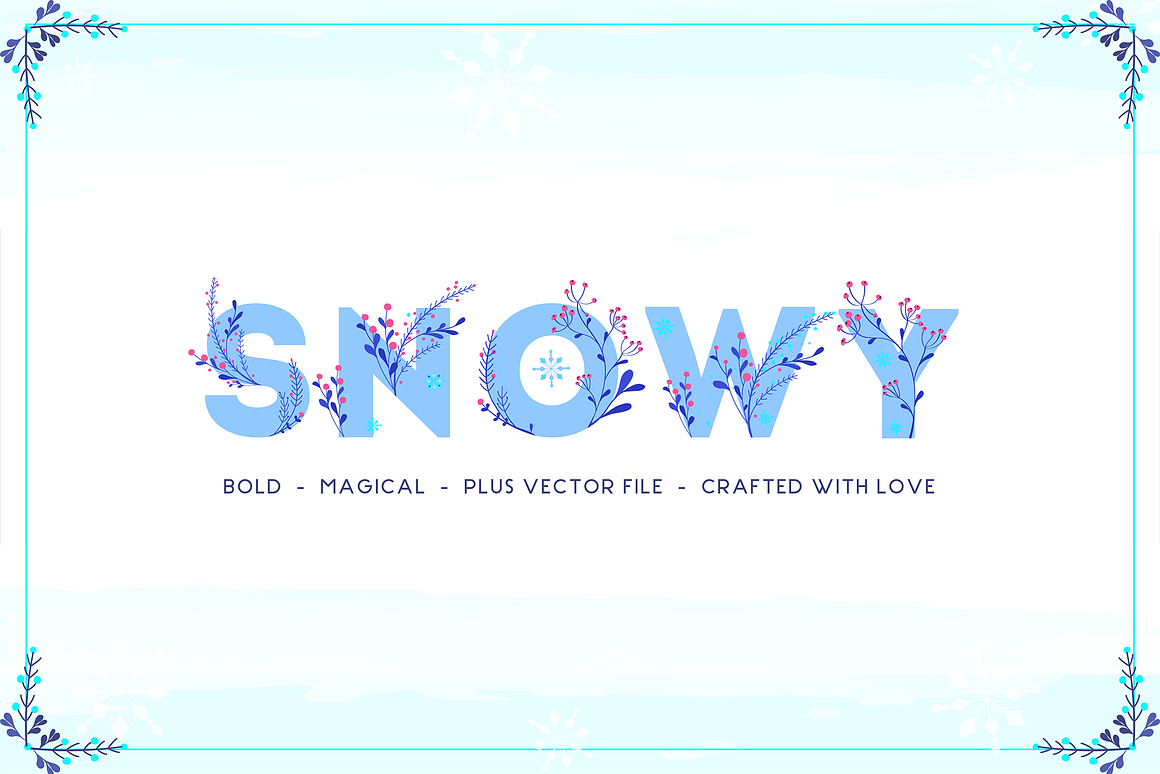
Snowy Floral Color Font
Snowy Floral Color Font is perfect for winter wedding invitations, holiday greeting cards, festive seasonal campaigns, cozy winter branding, botanical winter illustrations, elegant holiday packaging, winter resort materials, seasonal gift tags, frosty fashion collections, holiday party invitations, winter wonderland events, and enchanted seasonal communications.
What makes Snowy Floral Color Font exciting is its enchanting winter beauty that captures the delicate magic of frost-kissed blooms and snow-laden gardens through colorful letterforms that bloom with seasonal elegance. This captivating typeface embodies the serene beauty of winter's gentle touch on nature, combining delicate floral elements with crystalline snow effects that create visual poetry resonating with audiences seeking seasonal charm and natural winter wonder. The font's multi-colored character and botanical details create immediate emotional connection while maintaining the sophistication essential for premium seasonal applications. Its enchanted personality makes it perfect for brands that want to communicate winter elegance, seasonal celebration, and the transformative beauty of nature's winter artistry.
The Snowy Floral Color Font family includes the main color font with integrated floral and snow elements, featuring seasonal alternates, winter ligatures, and botanical decorative components. The character set incorporates snowflake symbols, floral numerals, and winter-themed punctuation marks that enhance the font's seasonal character and provide designers with comprehensive winter typography solutions for enchanting brand expressions.
Whether you're creating winter brand identities, designing seasonal marketing materials, or developing holiday communications, Snowy Floral Color Font Free Download provides the winter enchantment your seasonal projects require. This premium color font excels in applications where seasonal beauty and emotional connection are crucial for brand positioning and audience engagement in holiday and winter markets. The font's botanical winter qualities work beautifully across digital platforms and premium print applications, making it an essential tool for designers creating memorable winter experiences. Seasonal businesses and holiday brands choose this color font for its ability to communicate winter magic while maintaining professional appeal and seasonal authenticity. The comprehensive character support includes winter symbols and botanical glyphs, expanding its versatility for global seasonal applications and multilingual winter communications. Professional designers appreciate its innovative color technology and seasonal versatility, ensuring projects remain both visually stunning and functionally effective for winter audiences. When you incorporate this exceptional color typeface into your seasonal communications, you're selecting a typography solution that celebrates winter's natural beauty and holiday enchantment, ensuring your brand connects with audiences seeking seasonal experiences and winter wonder while maintaining the magical credibility essential for success in competitive holiday markets and seasonal industries that celebrate nature's winter transformation and create memorable experiences during the most enchanting time of year.